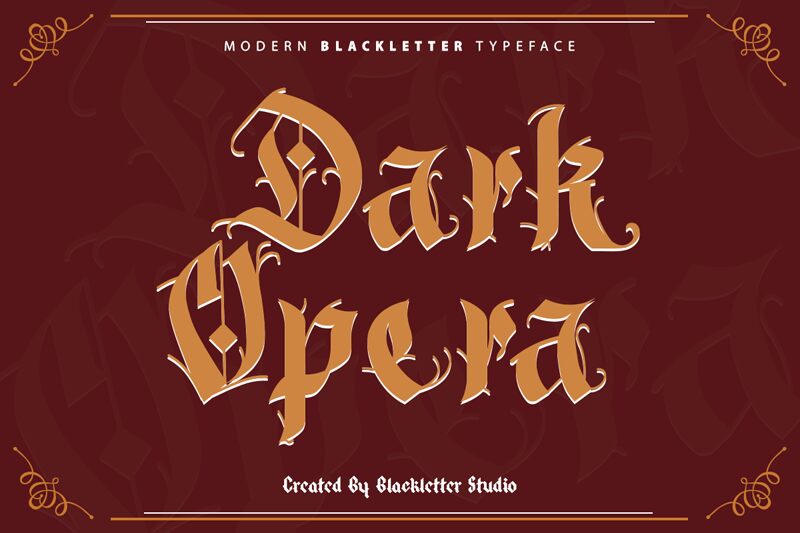
Dark Opera is a gothic font designed by the talented Blackletter Studio. Its medieval style and semi-light weight make it perfect for projects that demand a touch of old-world charm. Whether you're designing invitations for a Renaissance-themed wedding, creating a fantasy book cover, or adding unique typography to your website, Dark Opera is the ideal font choice. Its intricate details and elegant curves will transport your audience to another time and place. Don't settle for ordinary fonts when you can elevate your designs with Dark Opera's distinct character and personality.
Dark Opera